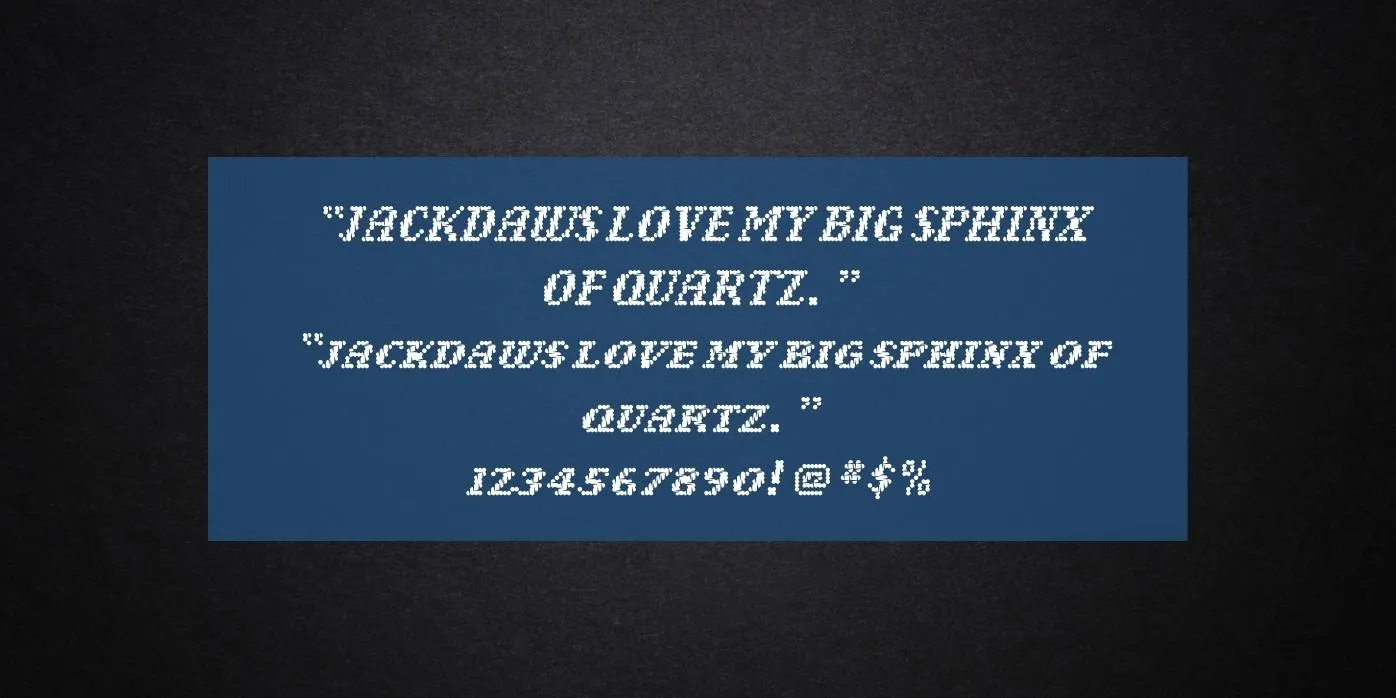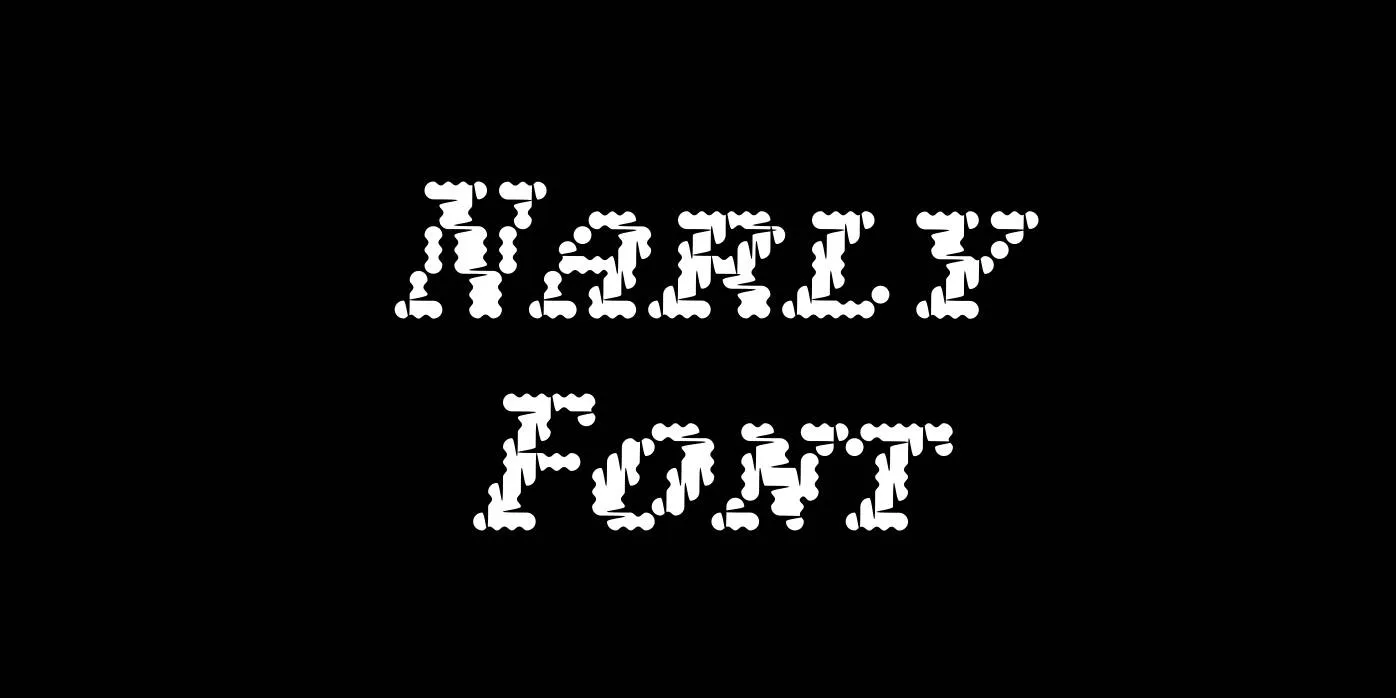
Narly Font
In this article, we present Narly Font which belongs to the fancy fonts family. This typeface was designed by Zuzana Licko. The design is very Narly and the shapes of the letters are different from any other font. The most distinguishing characteristic of this font is that it has a very high x-height.
This makes the letters appear to be larger than they actually are. You will learn about its unique features and how to create beautiful layouts with it. This typeface is not included in the library of google fonts. You can also use this family for Adobe and Canva programs.
You can also use mystery font which is closest to this font family. Narly Font is a great choice for headlines, titles, and branding purposes. It’s also a good option for short paragraphs of text. However, because of its high x-height, it’s not suitable for long blocks of text.